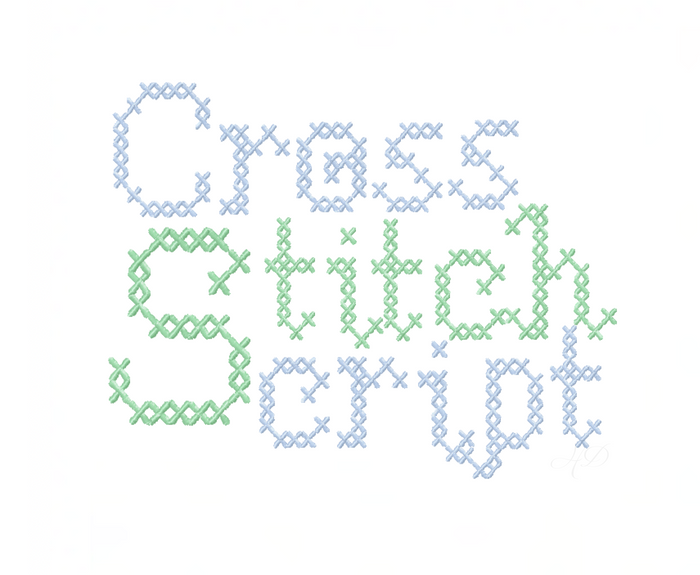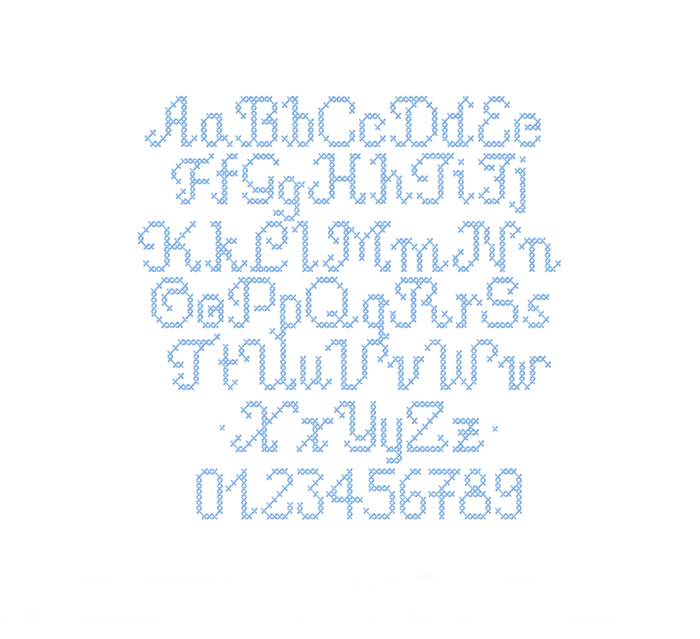
Cross Stitch Script Satin Embroidery Font
Unlock your creativity with our Cross Stitch Script Embroidery Font, featuring a beautiful satin stitch design. This package includes uppercase and lowercase letters, along with numbers 0-9, offering you 62 individual files in various sizes. Perfectly compatible with embroidery machines, each size can fit within a 4x4 hoop or larger.